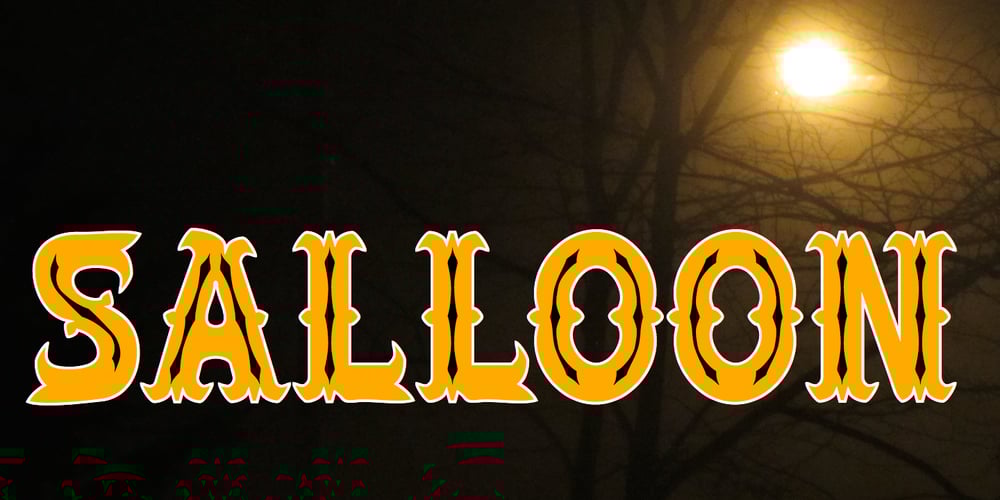
Salloon
Salloon font
Salloon Font Family was designed by Robert Schenk and published by Ingrimayne Type. Salloon contains 12 styles and family package options. The original version of Salloon was what has become Salloon-Wide. It was designed a year or two before 1990. The narrower version, which is now the regular version of the face, was constructed a few years later. There never has been a true lower-case set of letters for these fonts, but the narrower version introduced a second set of caps by removing the side bumps from the letters. Although Salloon may look like an old font, no historic font closely resembles it. Fonts with bold, thick stems such as Salloon invite interior decoration. The five striped versions and the shattered version of the font were produced a year or two after the construction of the narrower Salloon when the arrival of a font distortion program made it easy to cracked and stripe fonts. In 2019 an outline style and two highlighter styles were added to be used in layers with the Salloon-Regular and one highlighter style was added to be used with Salloon-Wide.